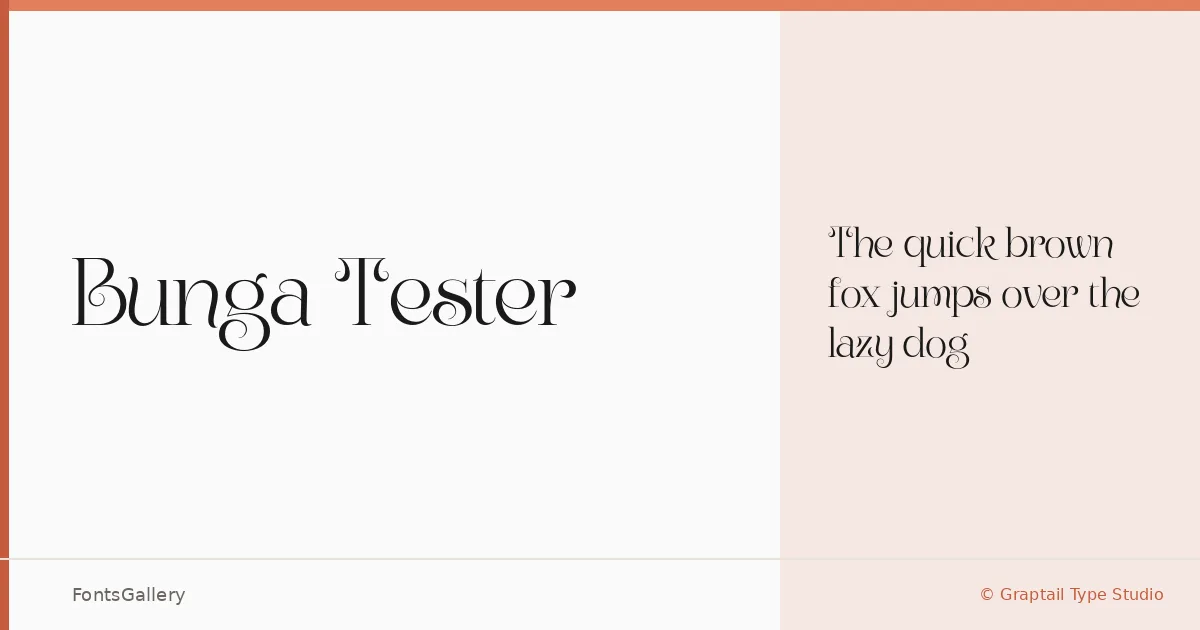
About Bunga Tester Font
There is a particular kind of serif that carries its weight with restraint — where the elegance lives in the spacing as much as in the strokes themselves. This is that kind of face. Designed by Teuku Deky Firnanda at Graptail Type Studio, it arrives as a single Regular cut in OTF format, with letterforms that lean into classic proportion while keeping the overall feel contemporary rather than archival.
The mood here is firmly in luxury and classic territory — the kind of serif that suits a masthead or a logotype more naturally than running body copy. That single Regular style means it asks to be used at scale, where the details of the serifs can do their work. Partial Latin coverage keeps the character set focused, which suits the intended contexts well.
Book covers, editorial mastheads, brand identities, and poster headlines are where this face earns its keep — anywhere a confident, elegant serif anchors the composition. For contrast, it pairs naturally with the clean neutrality of Helvetica or Asap, while Armelie, Etna, and Kactigona offer more expressive companions for layered, fashion-forward layouts.